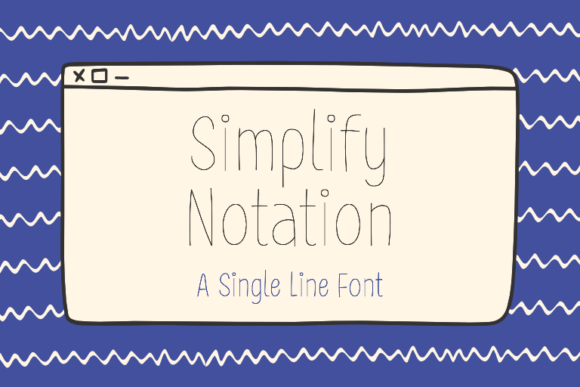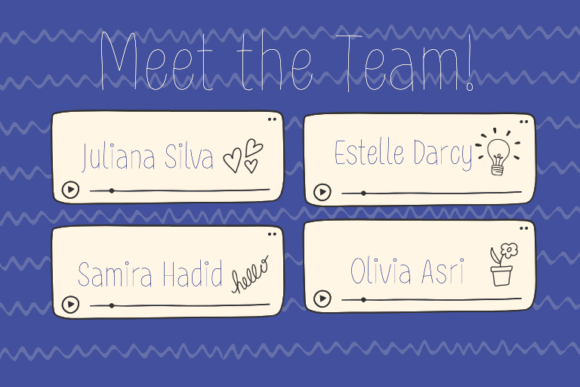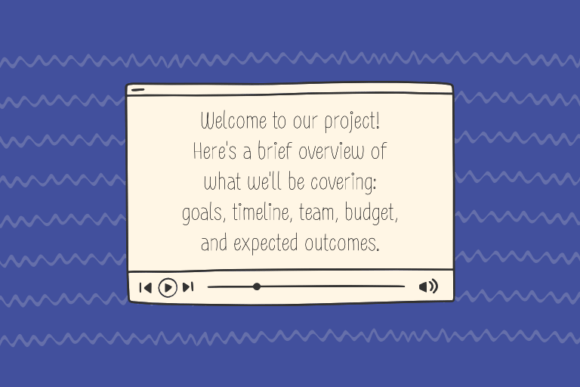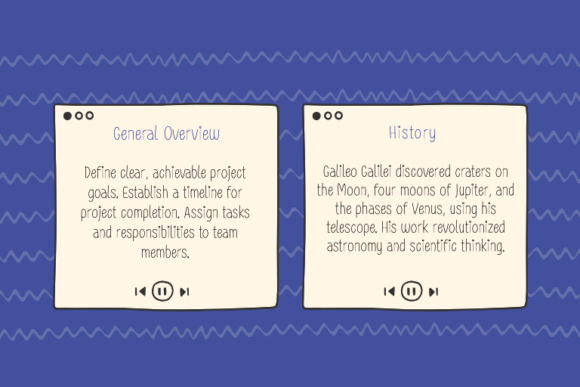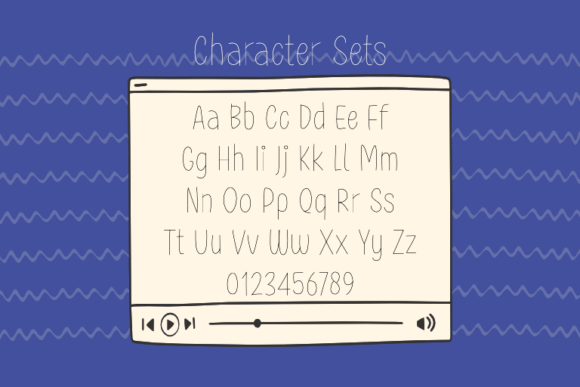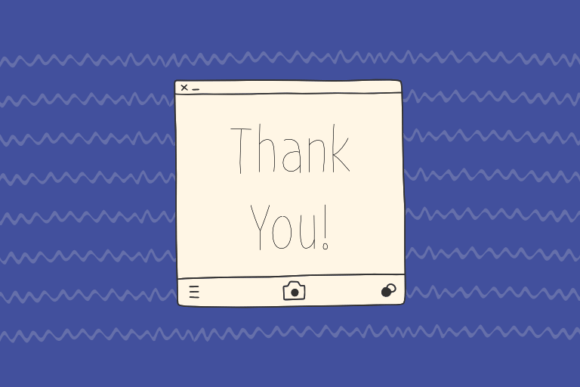
Simplify Notation is a sleek and contemporary single-line script font. Perfect for adding a modern touch to any design, this font features smooth and fluid lettering with a minimalist feel. The thin lines give it a delicate look, making it ideal for elegant and sophisticated designs that demand attention.